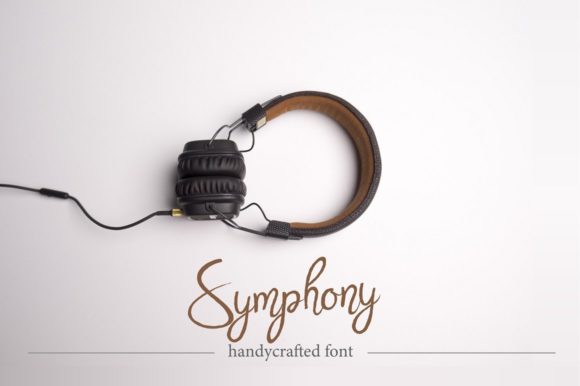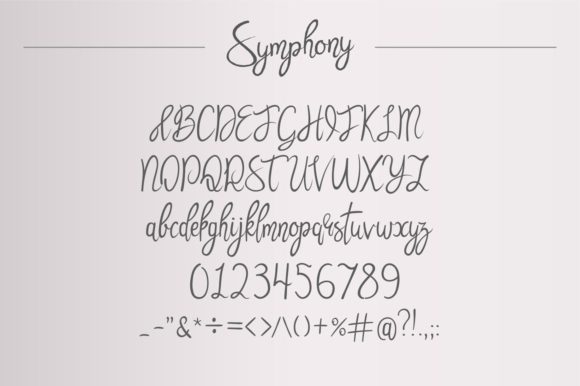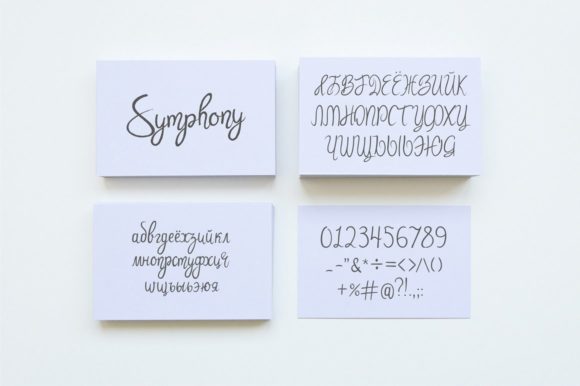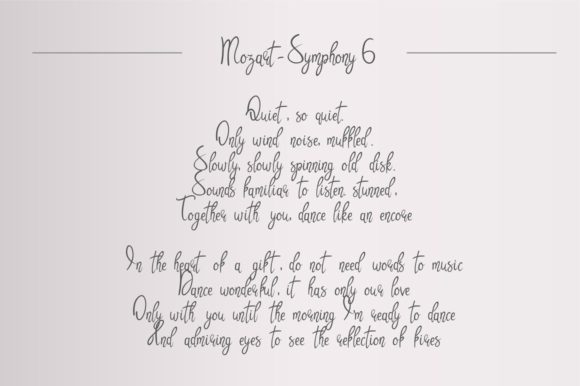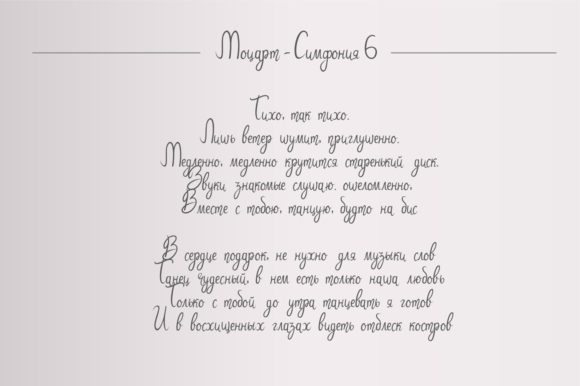
Symphony Font
Symphony is a delicate and sophisticated handwritten font that adds an elegant touch to your design projects. With its thin and graceful strokes, this font exudes charm and sophistication, making it a perfect choice for various applications.
Whether you’re working on wedding invitations, formal event announcements, or elegant branding materials, Symphony lends a refined and stylish look to your designs. Its intricate letterforms and smooth lines create a sense of elegance and grace, making it ideal for projects that require a touch of sophistication.
In the realm of typography, Symphony shines in headings, titles, and logo designs. Its thin and delicate strokes give a sense of refinement and craftsmanship, making your text appear visually appealing and memorable. The font’s charm and elegance make it a versatile choice that can be adapted to various design styles, from minimalist to vintage-inspired.
Symphony is particularly well-suited for projects in the realm of fashion, beauty, and luxury. Use it in fashion magazines, editorials, or branding materials for high-end products to convey a sense of exclusivity and sophistication. The font’s thin and elegant nature enhances the overall aesthetic and elevates the visual appeal of your designs.
For wedding-related projects, Symphony adds a touch of romance and refinement. It can be used in wedding invitations, save-the-date cards, and stationery to create an atmosphere of elegance and grace. The font’s delicate strokes and charming appearance capture the essence of a timeless love story, making it a beautiful choice for any wedding-themed design.
Symphony is also well-suited for editorial and publication designs, such as magazines and book covers. Its thin and elegant style adds a touch of sophistication to the typography, enhancing the overall visual impact of the layout. Whether you’re working on a fashion magazine, a lifestyle publication, or a poetry book, Symphony brings an air of elegance and charm to the textual elements.
In summary, Symphony is a thin and elegant handwritten font that brings a charming appearance to your design projects. Its delicate strokes and refined letterforms make it suitable for a wide range of applications, from wedding invitations and branding materials to fashion editorials and publication designs. Embrace the charm and sophistication of Symphony and let it elevate the visual appeal of your designs.